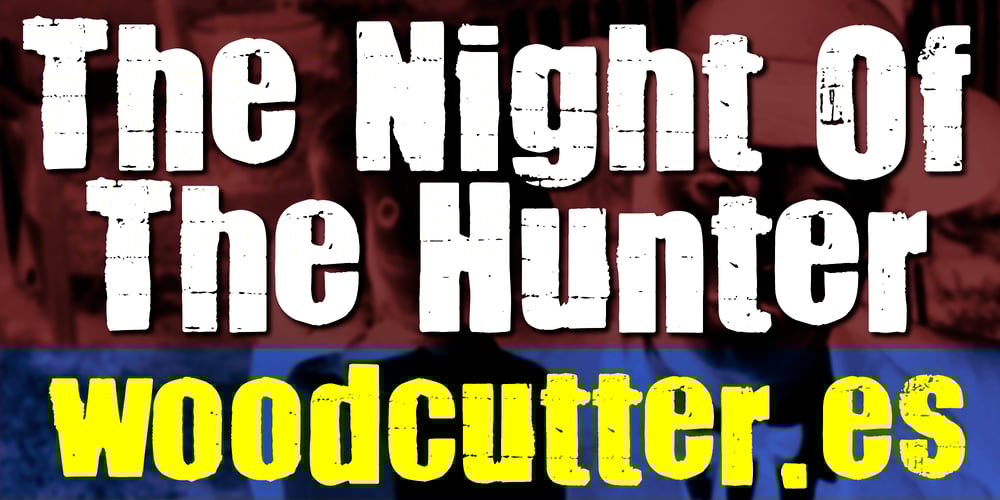
The Night Of The Hunter Font Family was designed by Jordi Manero and published by Woodcutter. The Night Of The Hunter contains 1 styles and family package options. “The Night Of The Hunter” is a typeface that evokes mystery and suspense, with a worn and slightly irregular base. Each letter, whether uppercase or lowercase, has a unique character, as if carved in the dead of night. The uneven texture adds a touch of antiquity and wear, perfect for projects aiming to convey a sense of unease or adventure. Ideal for movie titles, horror books, and any design needing a sinister and evocative touch. “The Night Of The Hunter” brings a hint of the unknown to your work.